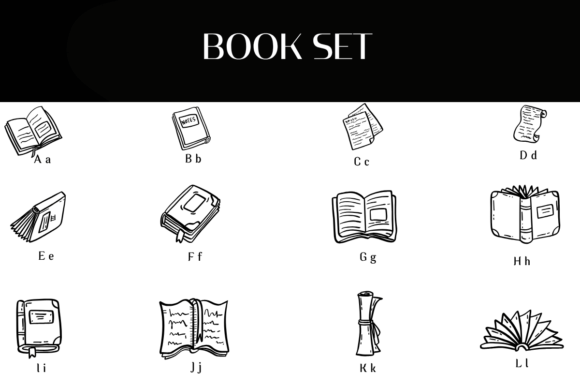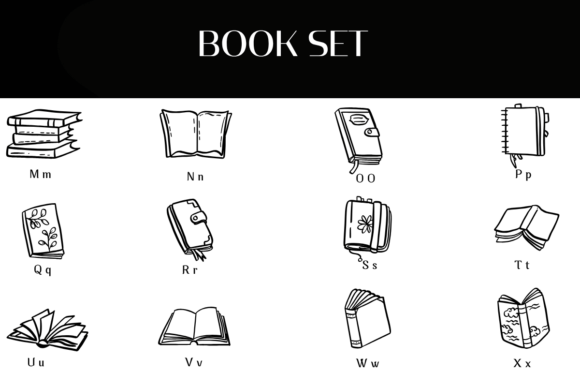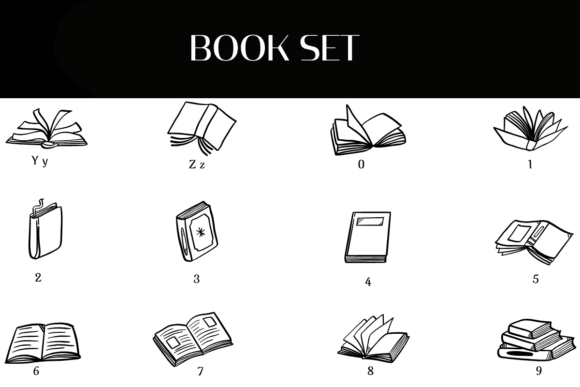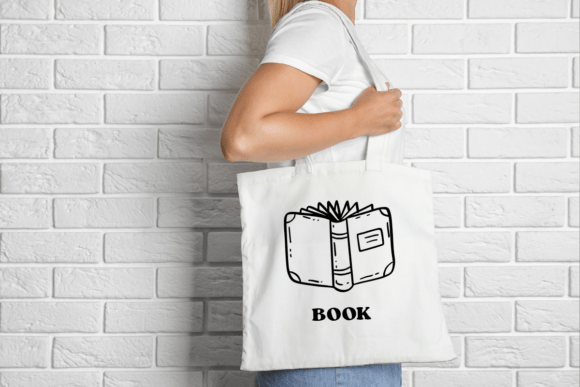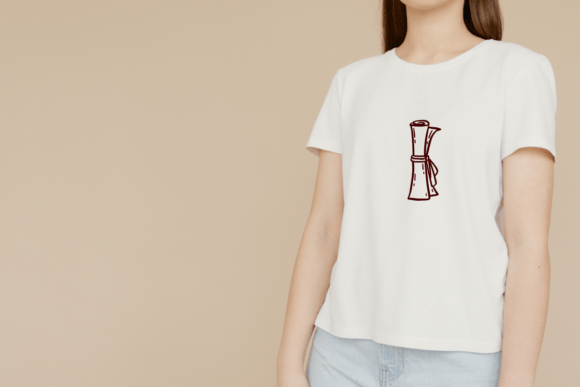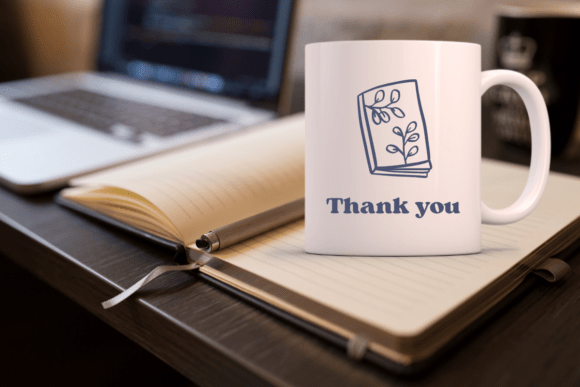
The Book Set Font: A Designer’s Dream Come True
I still remember the design project that led me to discover the Book Set Font. I was working on a branding project for a local library, and I needed a font that could convey a sense of nostalgia and love for reading. I spent hours scouring the internet for the perfect font, but nothing seemed quite right. That was until I stumbled upon Book Set Dingbats, a charming dingbat font featuring a curated collection of hand-drawn book illustrations.
From stacked novels to open journals and scrolls, this font offers a delightful variety of book-themed graphics perfect for educational projects, library branding, reading logs, stationery, and digital planners. In this article, I’ll share my experience with Book Set Font, including what I love about it, some quirks to be aware of, and a step-by-step guide on how to use it in different design platforms.
- ✨ Variety of book illustrations: The font includes a wide range of book-themed graphics, from simple to detailed illustrations.
- ✅ Easy to use: Simply type a letter to insert a detailed, ready-to-use book icon—no design skills required!
- 📚 Themed illustrations: The font’s illustrations are carefully curated to fit a book theme, making it perfect for educational projects, library branding, and reading logs.
While Book Set Font is an excellent choice for many design projects, there are a few quirks to be aware of:
- 🤔 Limited character set: As a dingbat font, Book Set Font has a limited character set, which means you won’t have access to standard font characters like letters and numbers.
- ⚠️ Glyphs may not align perfectly: Depending on the design platform and font size, glyphs may not align perfectly, requiring some manual adjustments.
The creator of Book Set Font was inspired by a passion for reading and a love for illustration. As a book lover and designer, they wanted to create a font that would make it easy for others to add book-themed illustrations to their designs. The result is a charming and versatile dingbat font that is perfect for educational projects, library branding, reading logs, stationery, and digital planners.
Q: What is Book Set Font?
A: Book Set Font is a charming and versatile dingbat font featuring a curated collection of hand-drawn book illustrations.